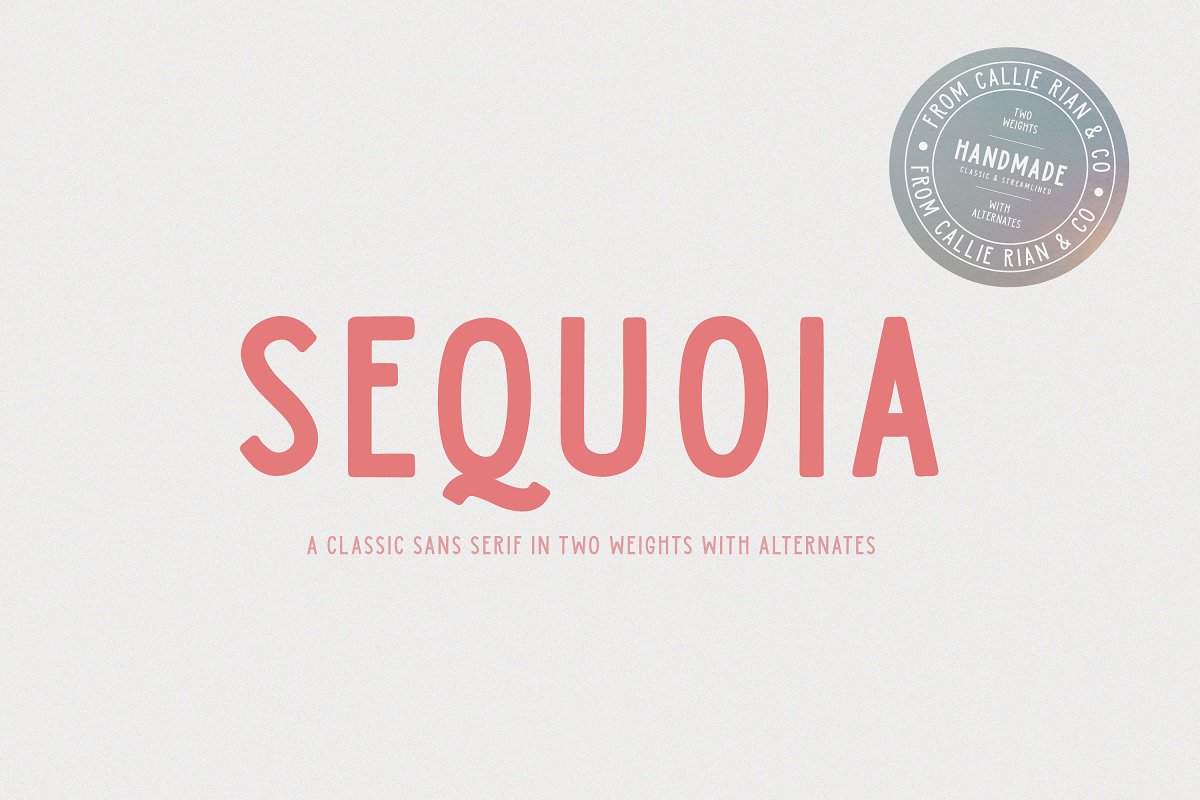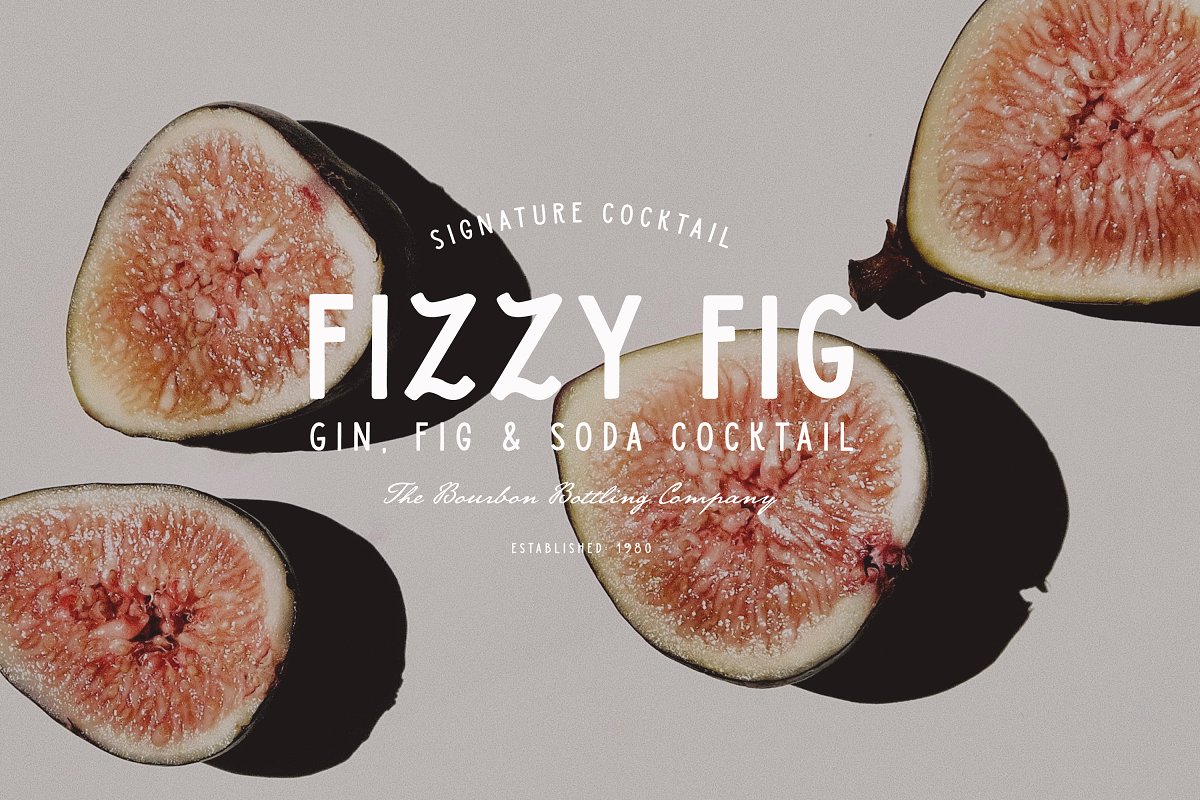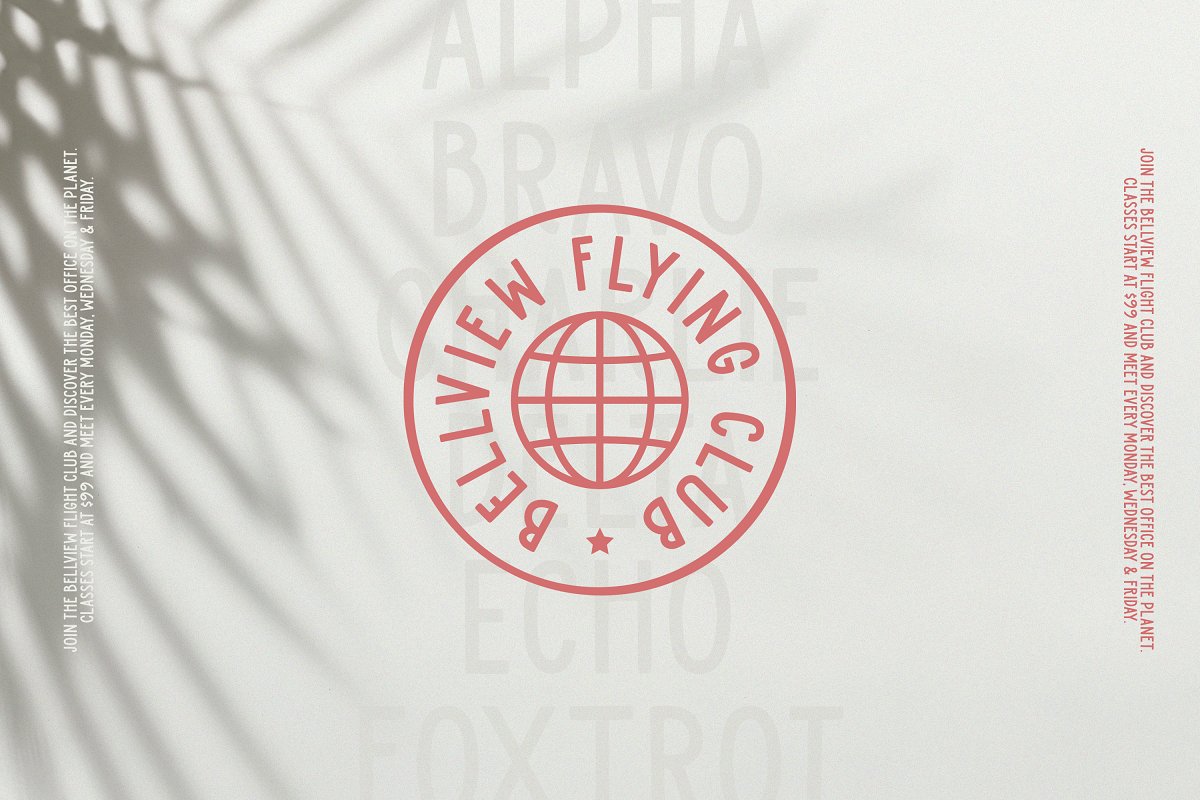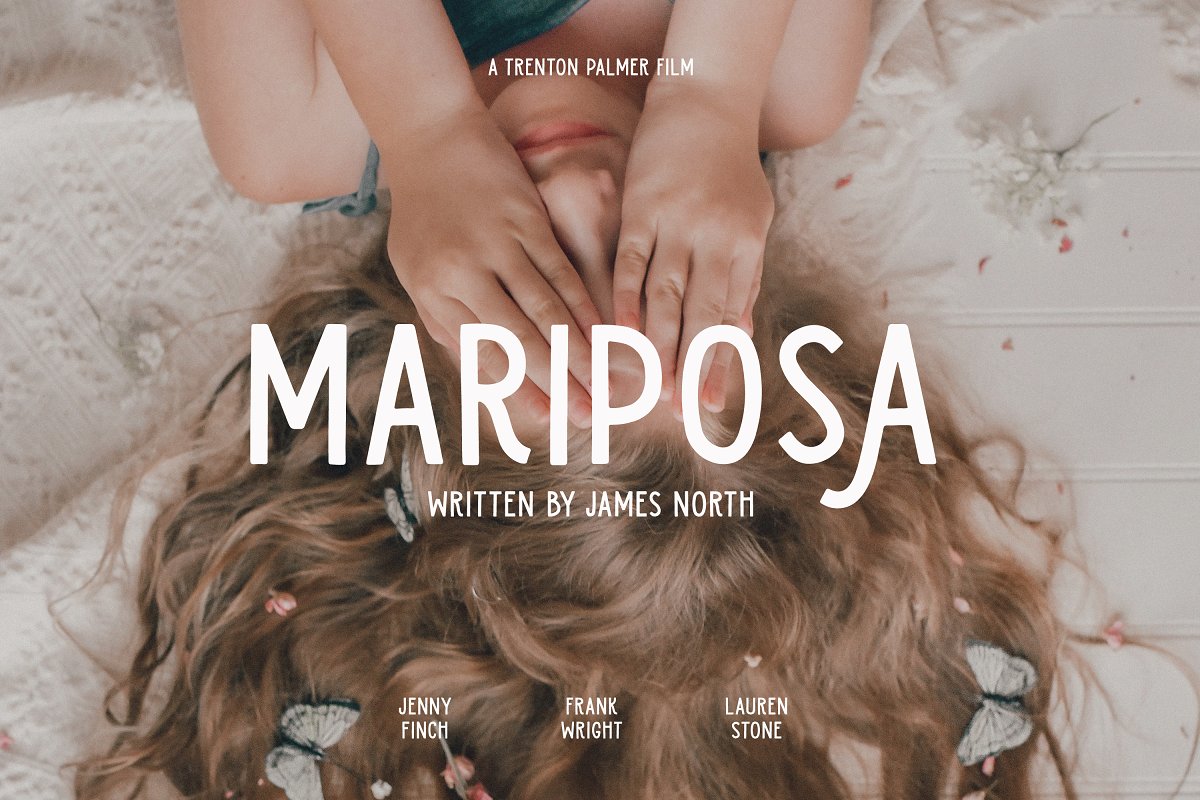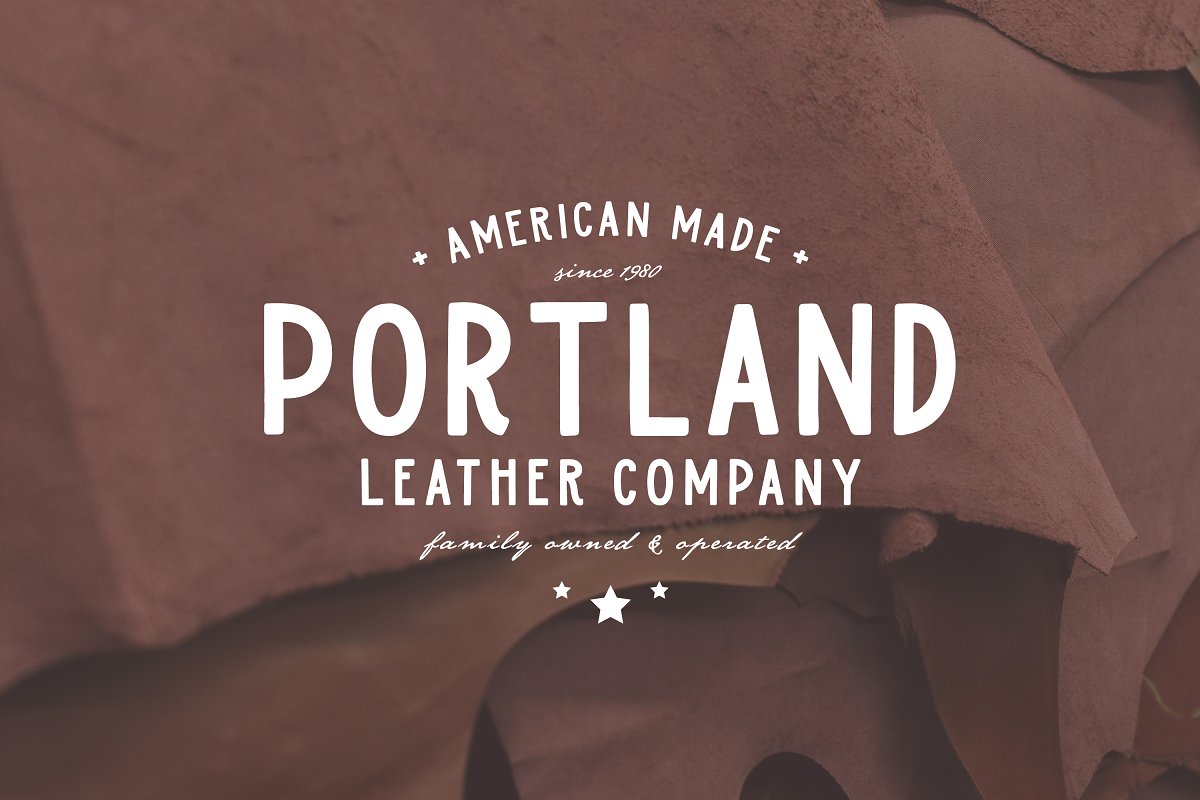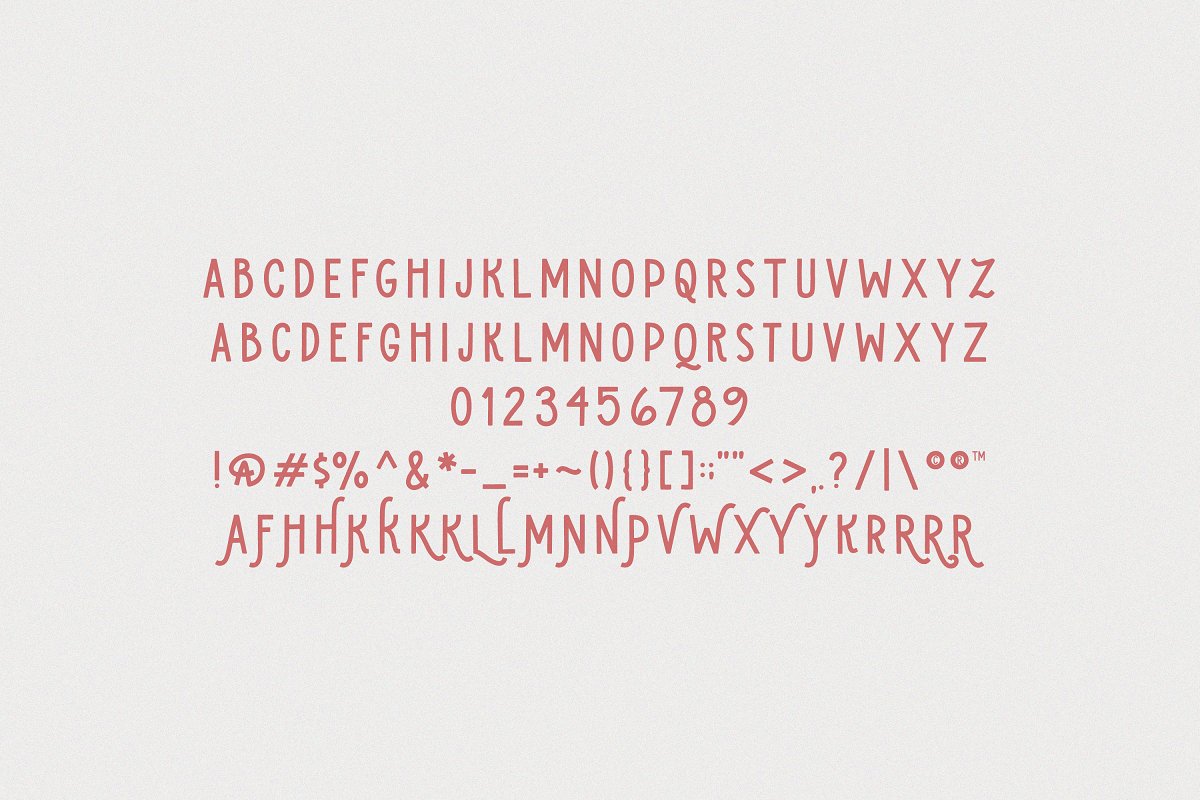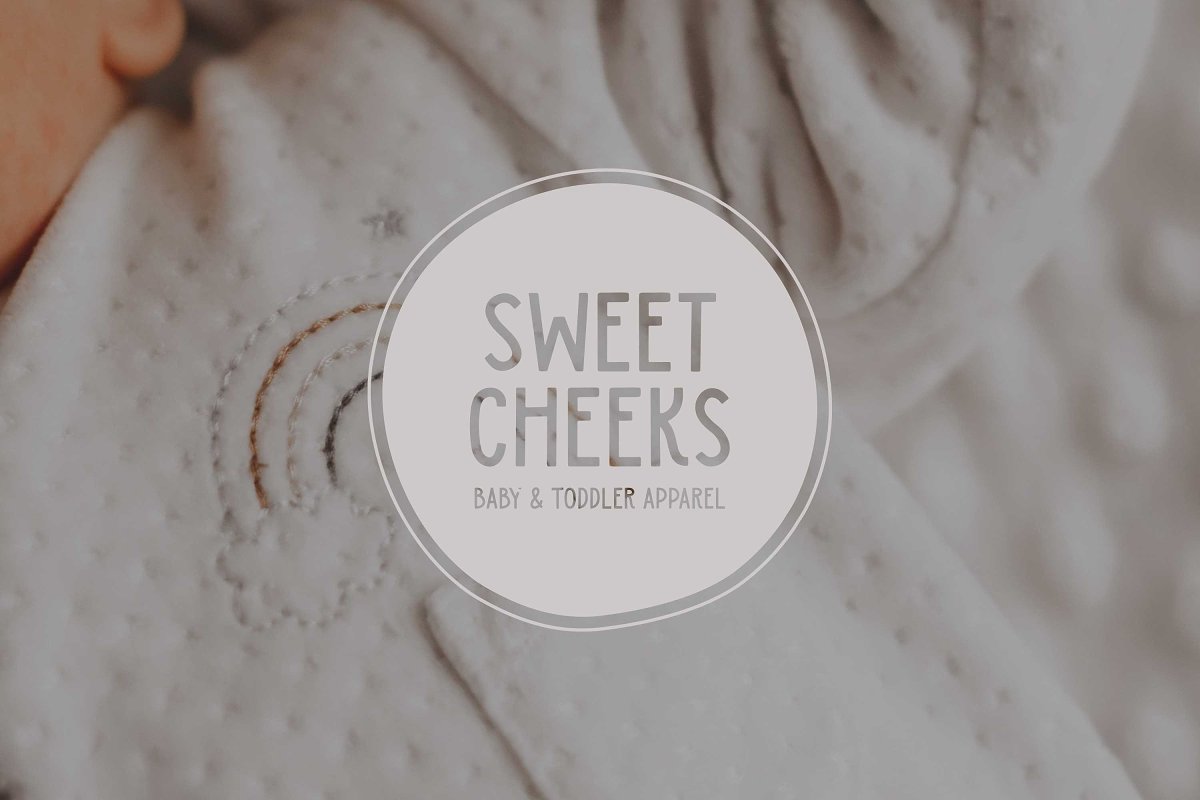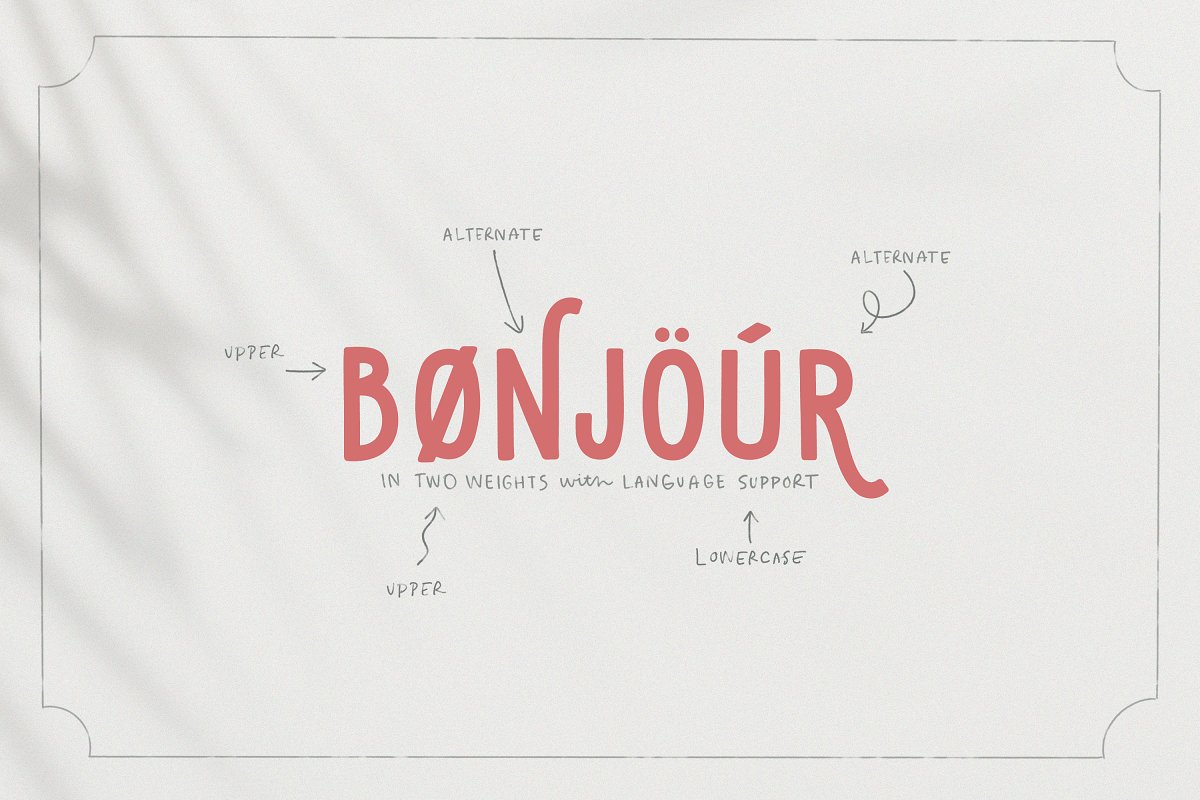
About the Sequoia Sans Elegant Display Font
Support Small Businesses! Shop at the source and help small businesses! PLUS, save 20% with code: HELLO20 on https://callierian, com/productsIntroducing Sequoia Sans, a modern, streamlined, all-caps display font, inspired by bold, clean headlines, Sequoia Sans comes in two weights (regular & bold), and boasts 25 decorative alternates with language support